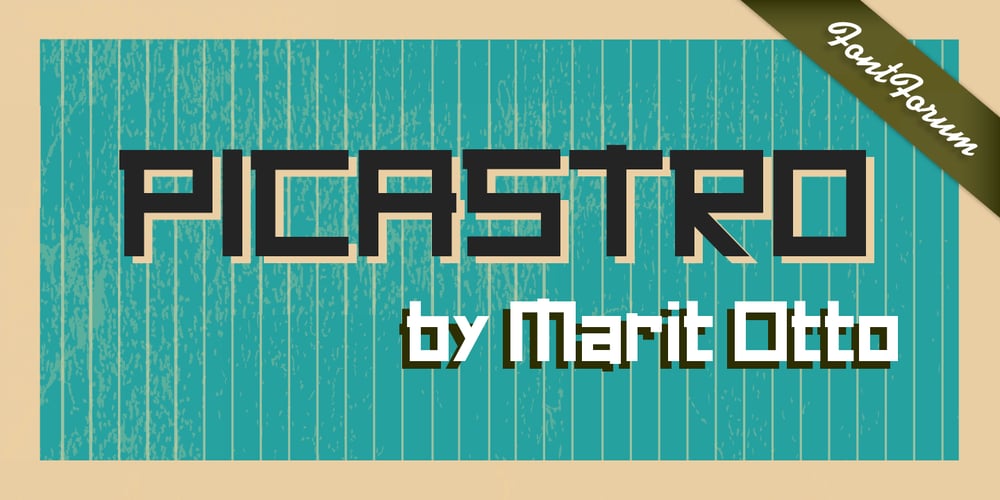
Picastro
Picastro font
Picastro Font Family was designed by Marit Angenita Otto and published by URW Type Foundry. Picastro contains 1 styles and family package options. Marit Otto about Picastro: The revolutionary typeface. Picastro is a fusion of Picasso and Castro. Don’t be alarmed by the second name! It is no political statement. Both characters represent different qualities in the typeface. The Picasso influence is the artistic, freestyle and frolic part. The Castro influence is the firm, square, perseverant look with a hint of propaganda to it. To combine two opposite inspirational sources (innovative versus persistent) makes the shape a bit edged. This typeface is very suitable for all kinds of graphic design (flyer, posters, CD covers and artworks) but also casual enough for (non academic) letter and text writing.